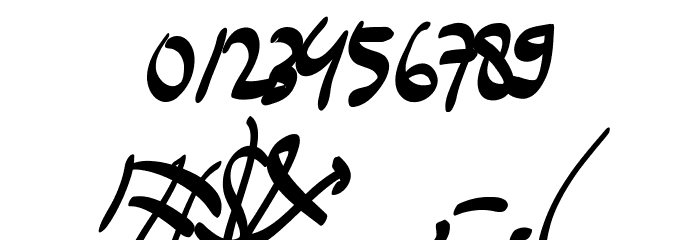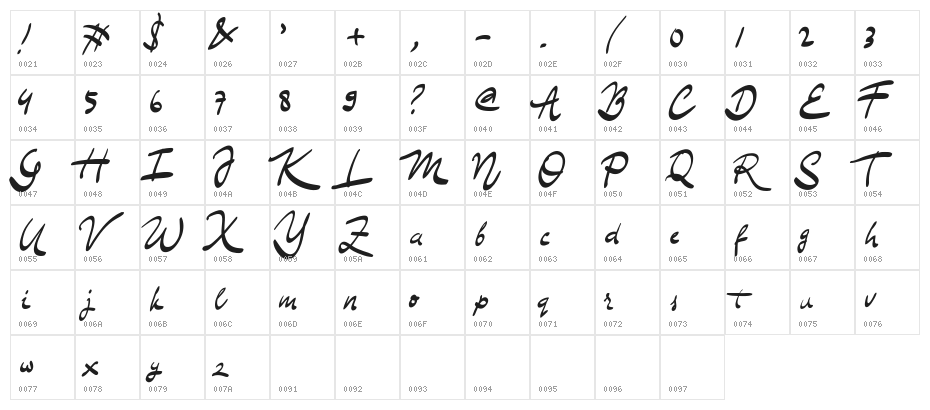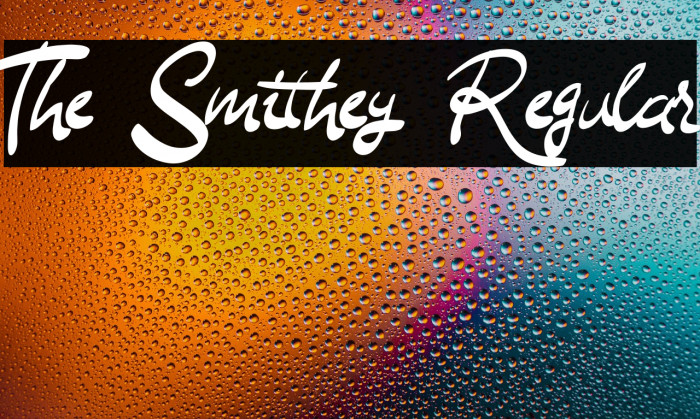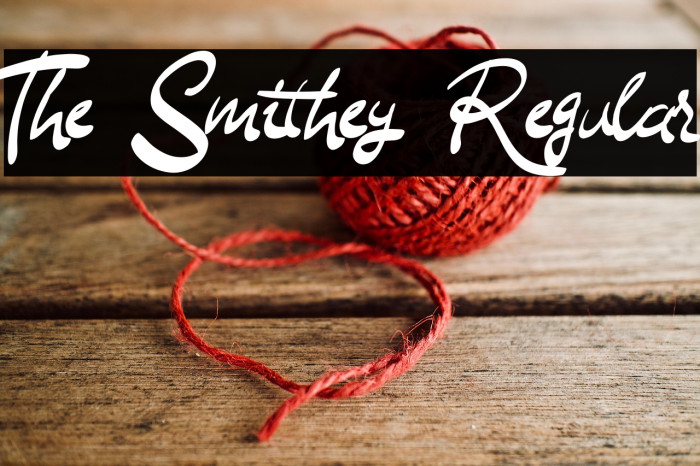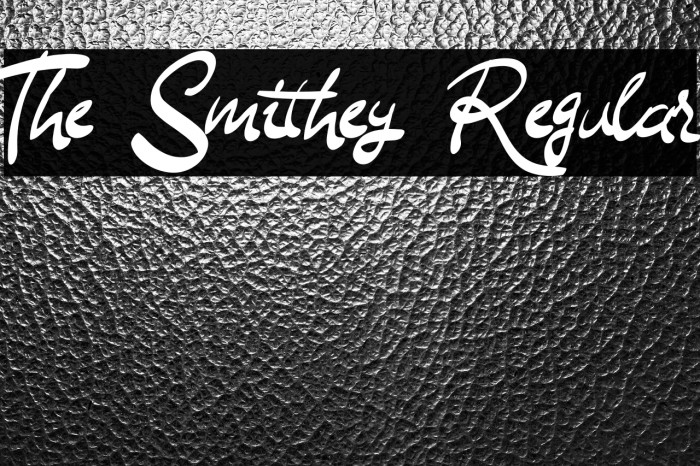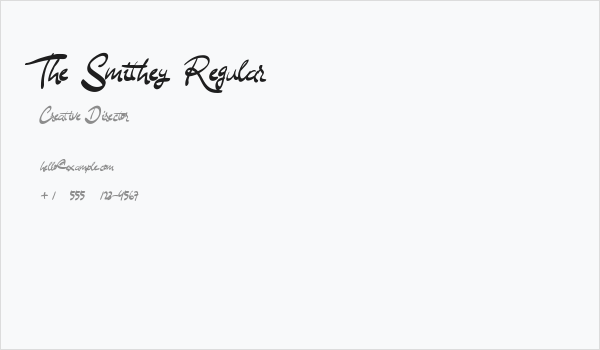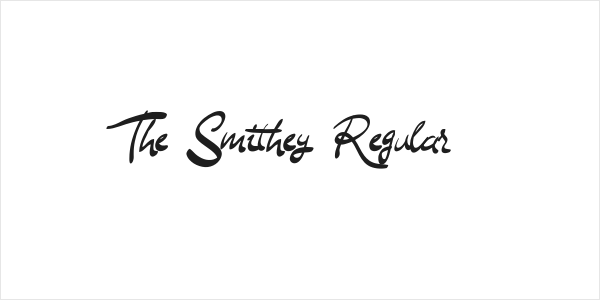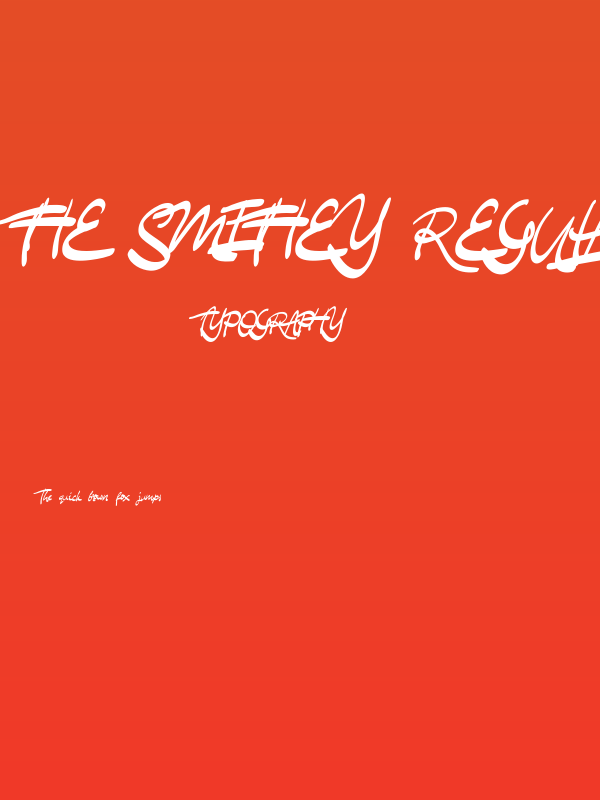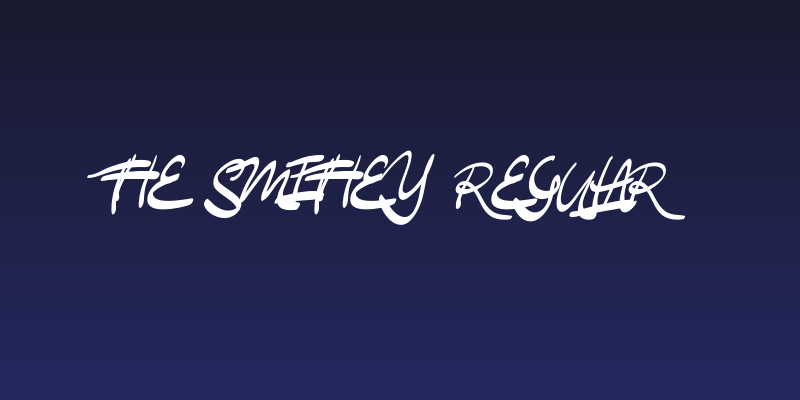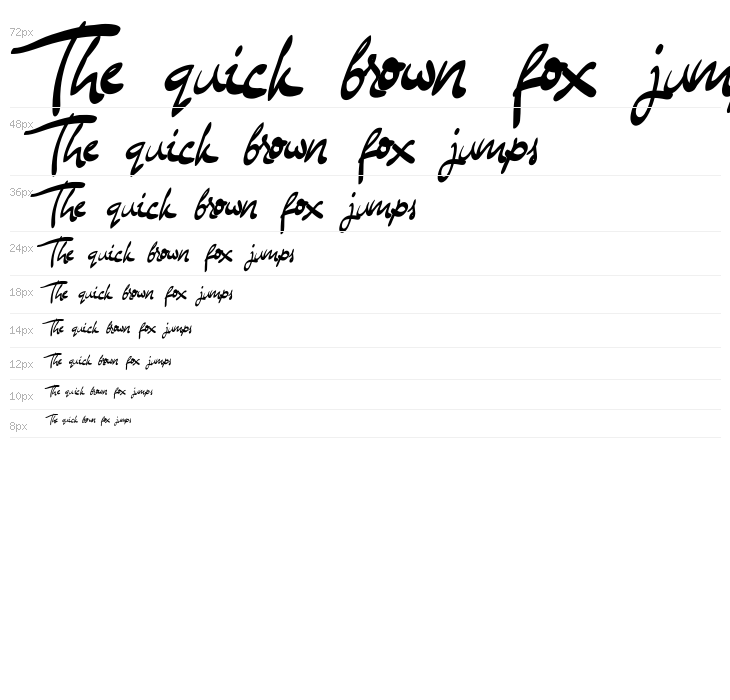
The Smithey Regular Font
The Smithey Regular Description
This font features a dynamic and expressive handwritten style, characterized by its fluid and interconnected strokes. The letters are bold and have a slightly slanted orientation, giving them a sense of movement and energy. The uppercase letters are particularly striking, with exaggerated loops and curves that add a decorative flair. The lowercase letters maintain a consistent style, with smooth transitions and a casual, yet sophisticated appearance. Numbers and special characters follow the same design principles, ensuring a cohesive look across all elements. The overall impression is one of creativity and artistic expression, making it suitable for projects that require a personal touch.